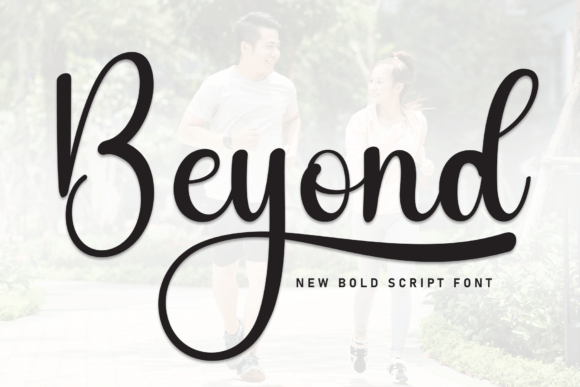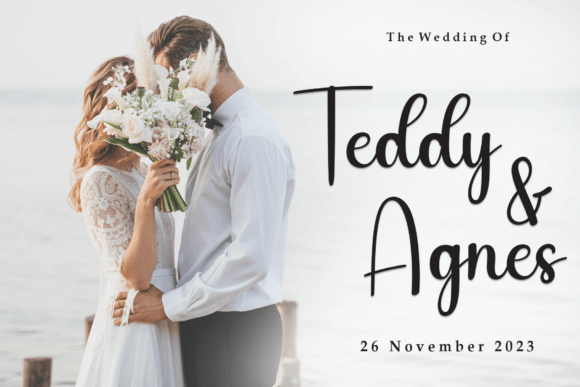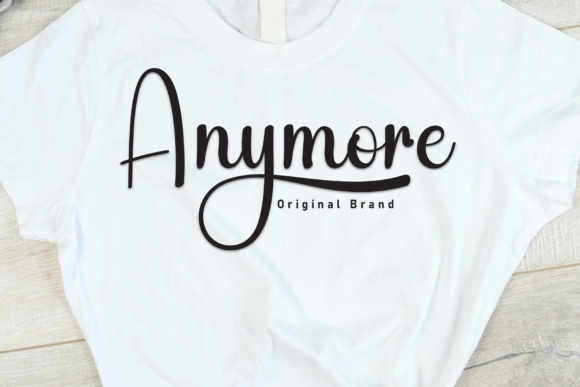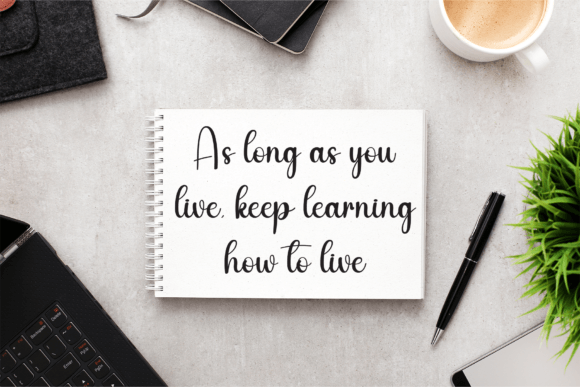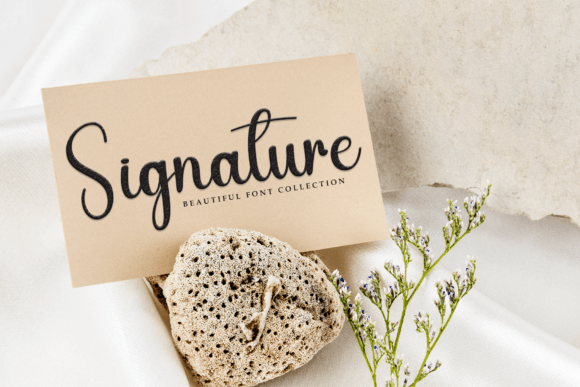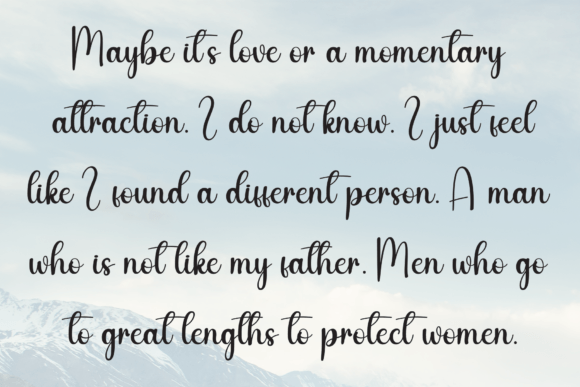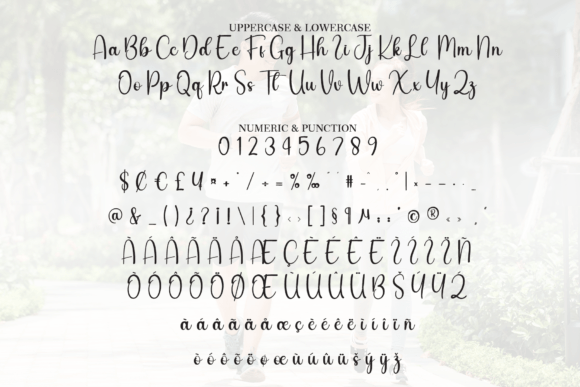
The Perfect Touch: Unleashing the Magic of Beyond Font
You know that moment when you’re brainstorming ideas for a project, and suddenly, a spark of creativity hits you? Maybe it’s a conversation with a client, a stroll through a quaint town, or a simple doodle on a napkin. For designers, those moments are the key to unlocking truly special work. And when it comes to adding a personal touch, Beyond Font is the perfect companion.
Beyond is a charming, handwritten font designed to bring a smile to your audience’s face. Ideal for wedding invitations, birthday cards, or any other design that needs a dash of whimsy, Beyond Font is the perfect tool for adding a touch of personality to your work. Whether you’re a seasoned pro or a budding designer, Beyond Font is an invaluable addition to your toolkit.
Beyond Font Key Features
- Unicode Support: Includes comprehensive Unicode character set, covering over 100 languages and scripts.
- Scalable: Optimized for use at various font sizes, from small text to large headlines.
Beyond Font Review
Overall, I was excited to dive into Beyond Font, but my experience was a mixed bag. Let’s break it down.
- Unique aesthetic: Beyond Font offers a distinctive and modern font style that can help your designs stand out.
- High-quality vectors: The font is well-crafted, with crisp lines and smooth curves.
- Limited character set: Beyond Font has a relatively small character set, which may not be ideal for complex projects.
- No international support: The font does not support non-English languages, which can be a limitation for global projects.
- Some ligatures may not work as expected: I experienced some issues with ligatures not displaying correctly in certain situations.
Overall, Beyond Font is a solid choice for designers looking for a modern, high-quality font. While it may have some limitations, its unique aesthetic and easy-to-use nature make it a great option for many projects. However, be aware of its limitations before committing to using it for complex or global projects.
Beyond Font can be used in a variety of applications, including:
– Creating unique and eye-catching headings and titles.
– Adding a touch of elegance and sophistication to your designs.
– Creating custom typography for branding and marketing materials.
– Enhancing the visual appeal of your documents and presentations.